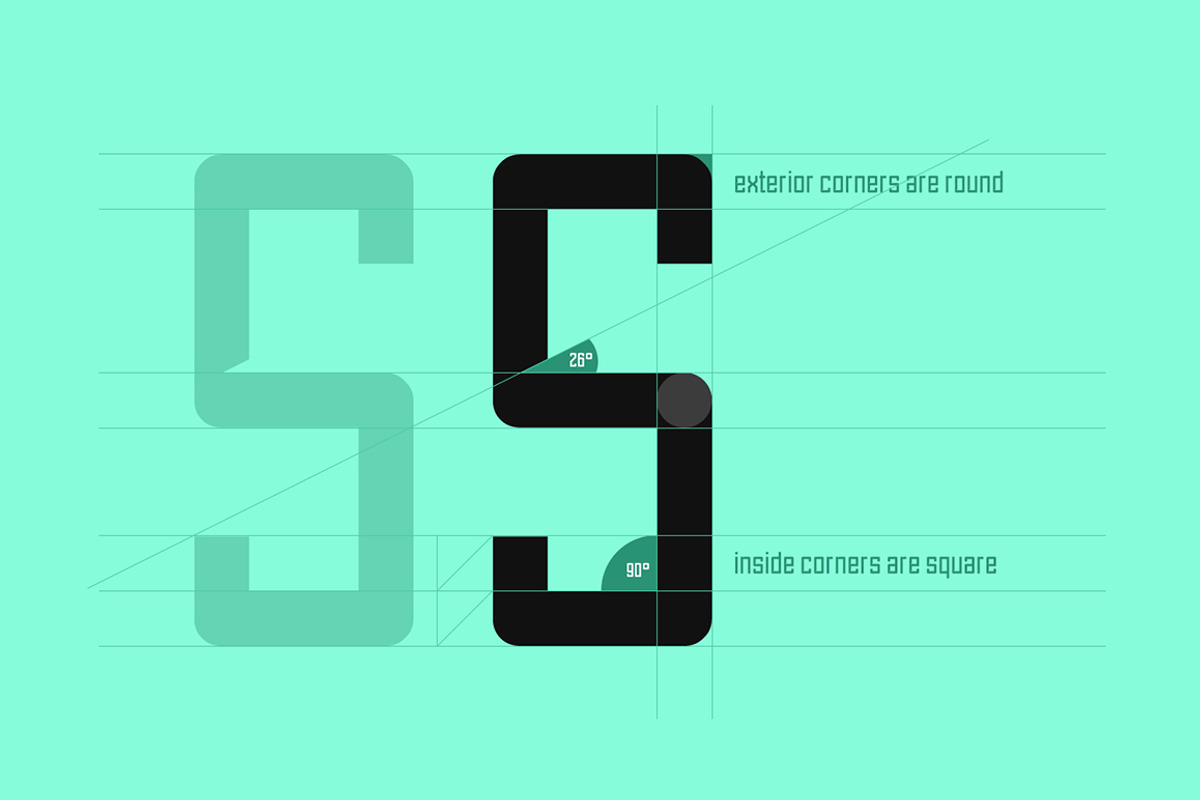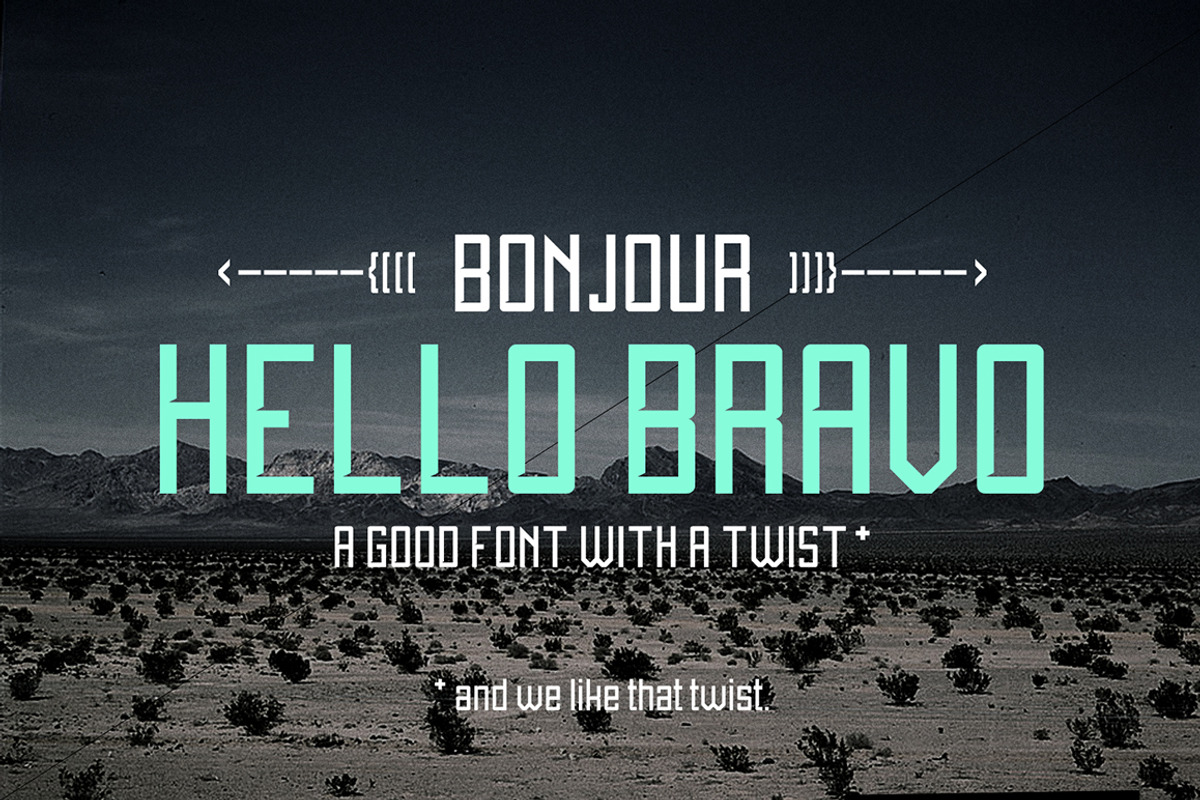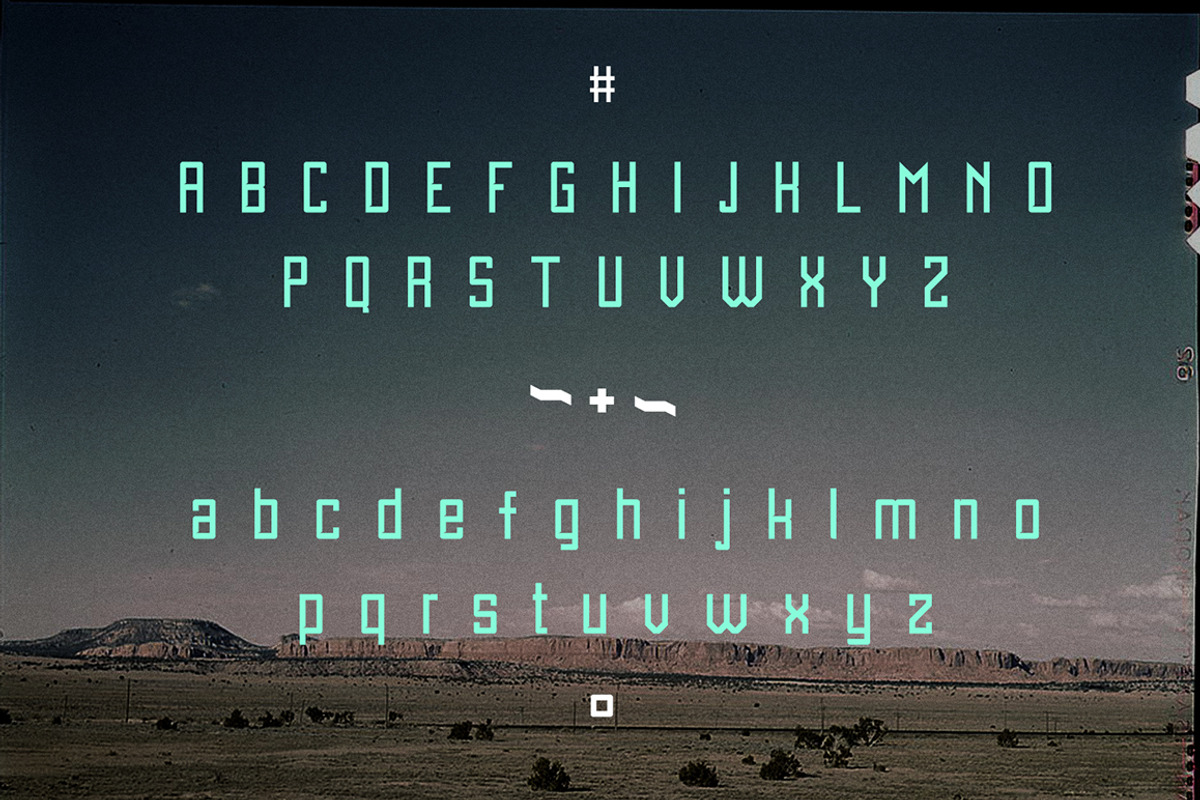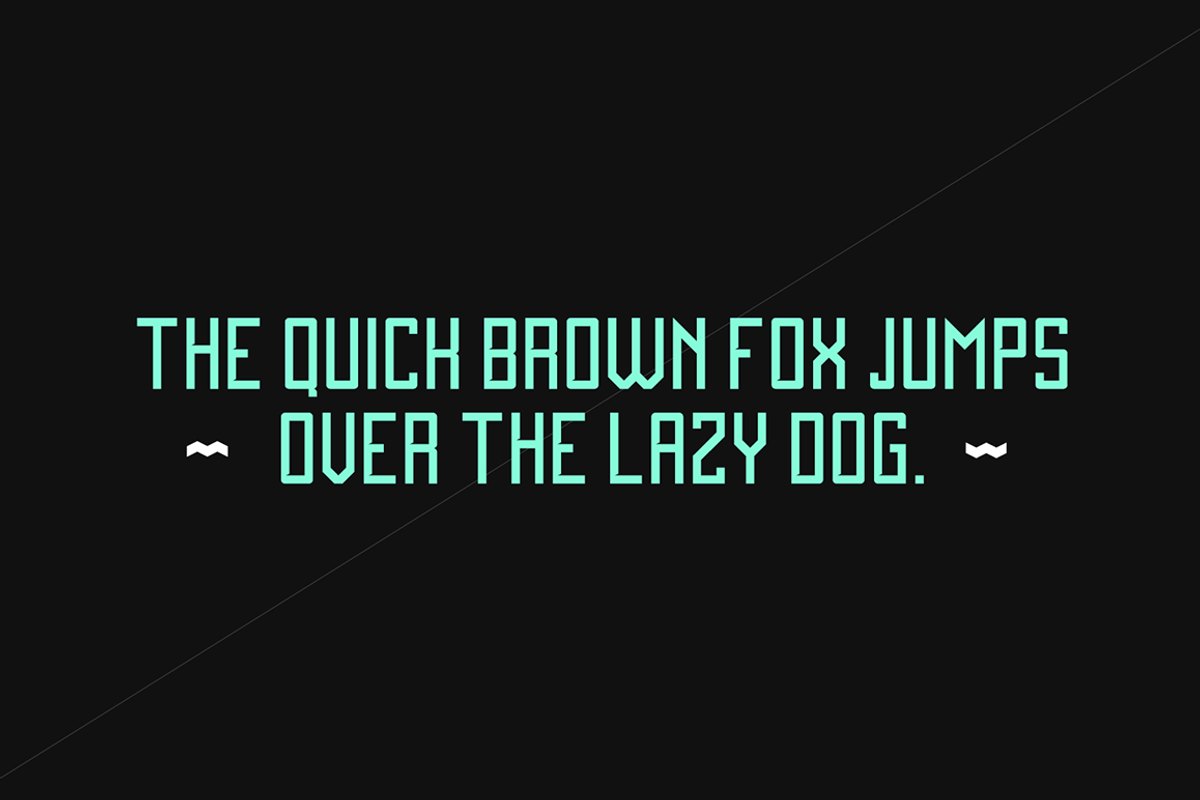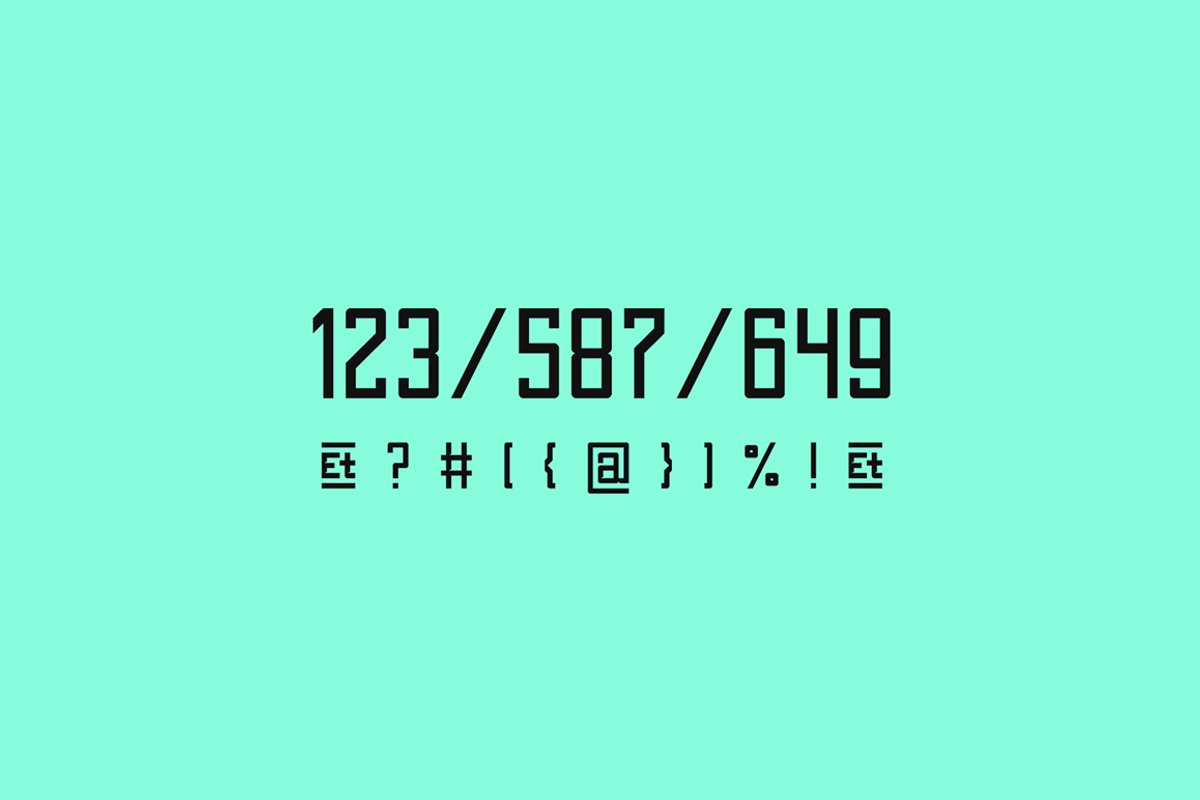
Hello Bravo - Font.
Hello Bravo - Font. by David is Creative is a font selected for branding, posters, packaging, typography.
Why Hello Bravo - Font. is worth a look
Hello Bravo - Font. by David is Creative fits naturally into Branding, posters, packaging, typography.